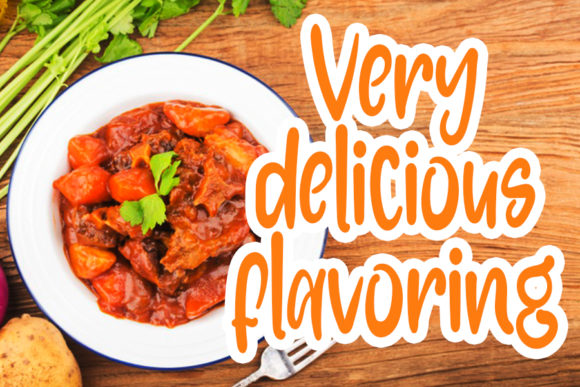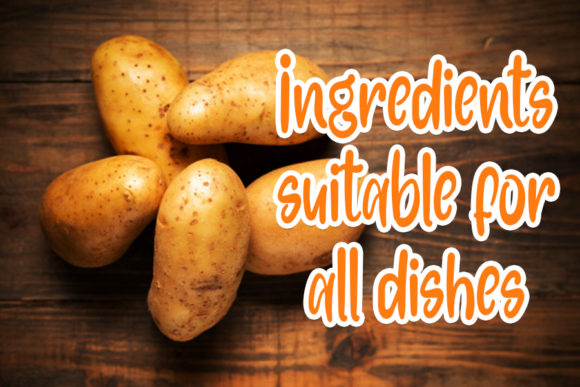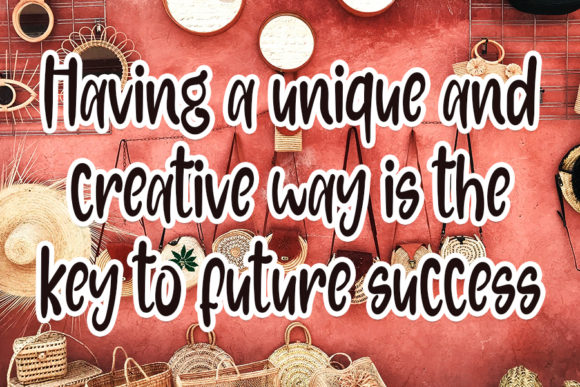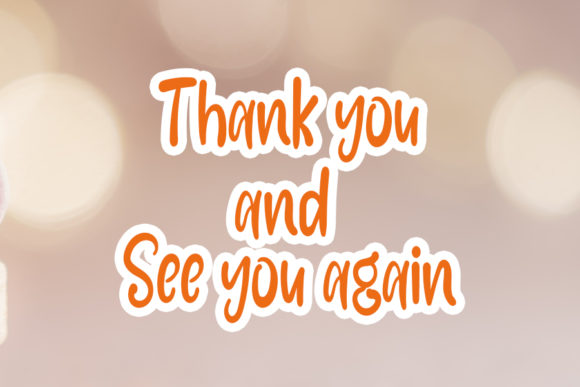
Sugar Caramel Font
About Sugar Caramel Font
Sugar Caramel is a sweet and clean handwritten font. Its natural and modern style makes it incredibly fitting for a large pool of designs.Use this gorgeous and unique typeface to bring any DIY project to life!